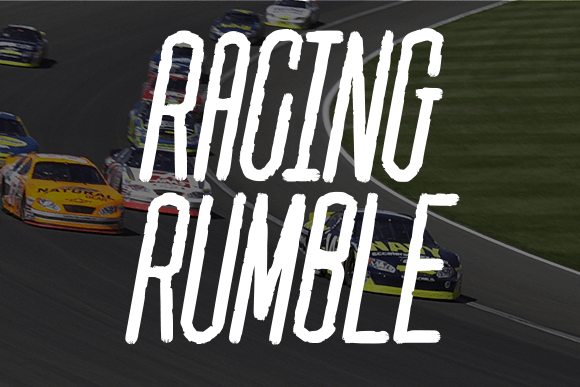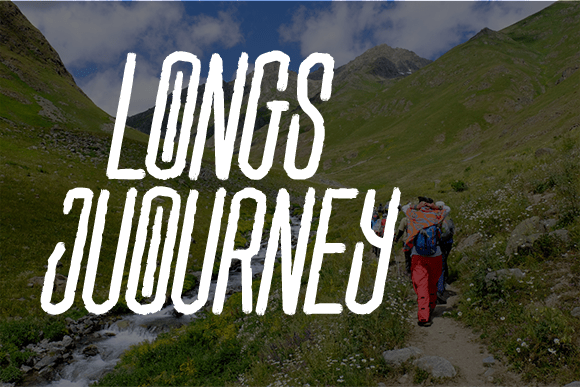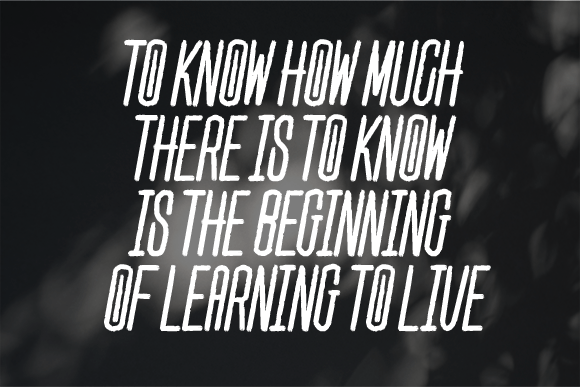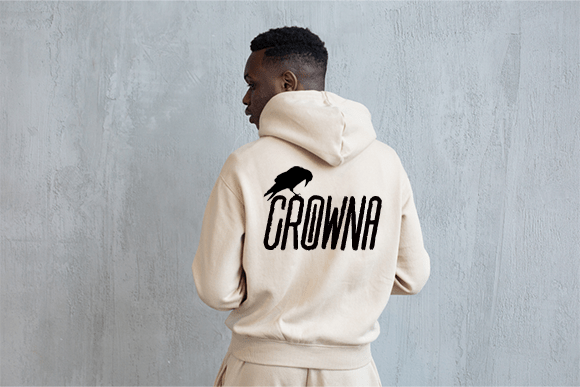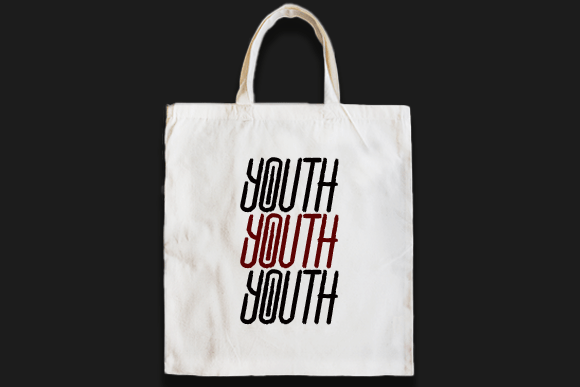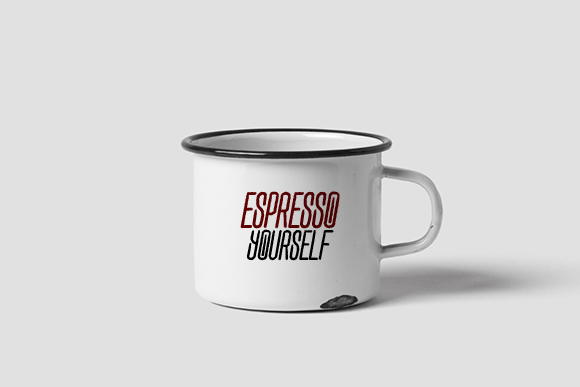
Introducing Crowna: The Ultimate Light Brush Sans Serif Font for Designers
In the world of design, fonts play a crucial role in conveying the tone and personality of a project. A well-chosen font can elevate your design, making it more engaging, readable, and memorable. If you’re a designer or crafter looking for a versatile and simple font that can complement various projects, look no further than Crowna. This beautifully light brush sans serif font is designed to effortlessly blend versatility and simplicity, making it a must-have addition to your design arsenal.
The Charm of Crowna
Crowna radiates a gentle vibe, making it perfect for a wide range of applications, from glossy magazine layouts and eye-catching product branding to evocative ad campaigns. Its understated charm also lends itself ideally to social media content, mockups, and even apparel design, such as T-shirts. Whether you’re working on a digital project or a print design, Crowna’s unique flair is sure to touch every project with a delicate yet bold touch.
Key Features of Crowna
- Light Brush Sans Serif: Crowna’s light brush sans serif design gives it a distinctive and modern look that’s both elegant and approachable.
- Versatility: Crowna’s versatility is one of its standout features. It can be used for a wide range of projects, from digital designs to print materials.
- Simplicity: Despite its bold and eye-catching appearance, Crowna remains simple and easy to read, making it perfect for body text and headlines.
- Gentle Vibe: Crowna’s gentle vibe makes it perfect for designs that require a softer, more approachable tone.
Use Cases for Crowna
Crowna’s versatility makes it suitable for various design projects, including:
- Magazine Layouts: Add a touch of elegance to your magazine layouts with Crowna’s light brush sans serif design.
- Product Branding: Make your product branding stand out with Crowna’s bold yet delicate appearance.
- Ad Campaigns: Create evocative ad campaigns that grab attention with Crowna’s unique flair.
- Social Media Content: Elevate your social media content with Crowna’s modern and approachable design.
- Mockups: Use Crowna to add a professional touch to your mockups and design presentations.
- Apparel Design: Create stunning apparel designs, such as T-shirts, with Crowna’s gentle and elegant vibe.
Why Choose Crowna?
With so many fonts available, why choose Crowna? Here are a few reasons why Crowna stands out:
- Unique Design: Crowna’s light brush sans serif design is both unique and memorable, making it perfect for designers who want to stand out.
- Easy to Read: Despite its bold appearance, Crowna remains easy to read, making it perfect for body text and headlines.
- Versatile: Crowna’s versatility makes it suitable for various design projects, from digital designs to print materials.
- Time-Saving: With Crowna, you can save time and effort in finding the perfect font for your project, allowing you to focus on the design itself.
In conclusion, Crowna is a beautifully light brush sans serif font that effortlessly blends versatility and simplicity. Its gentle vibe and unique flair make it perfect for a wide range of design projects, from glossy magazine layouts and eye-catching product branding to evocative ad campaigns and social media content. With its easy-to-read design and versatile nature, Crowna is a must-have addition to your design arsenal. Whether you’re a designer or crafter, Crowna is sure to elevate your designs and help you create stunning visual content.